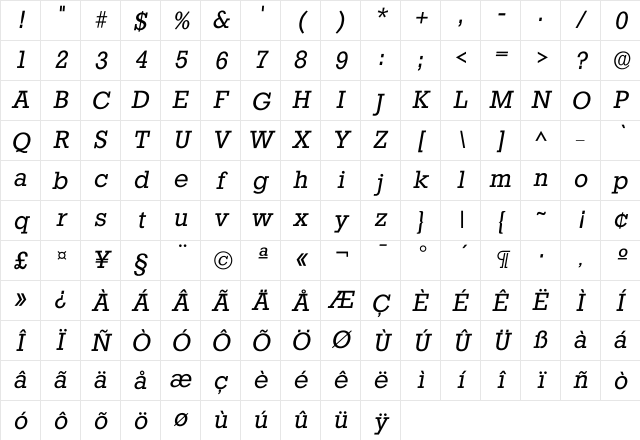
Istafford Regular
Design Context for Istafford
Istafford is a composed and adaptable typeface that performs quietly and consistently across a wide range of design contexts.